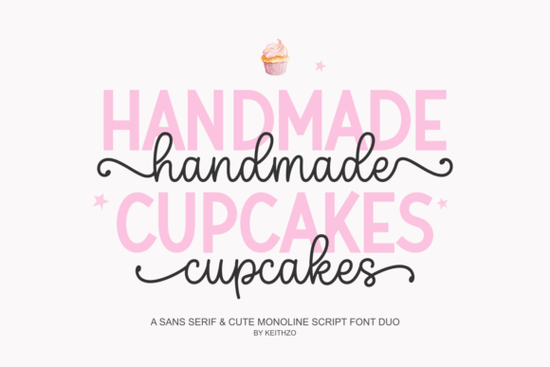
If you are designing for bakeries, lifestyle brands, or wedding vendors, finding a reliable typeface that balances modern clarity with a playful touch can take time. The Handmade Cupcakes Font solves this by offering a complete duo in one package. It combines a clean display sans-serif with a soft monoline script, giving you enough flexibility to handle everything from bold logos to delicate invitations without switching between multiple files.
What makes this typeface different from standard pairings?
Many creators settle for mismatched bundles that look disjointed in finished layouts. This set was built with visual harmony in mind. The primary sans-serif features crisp edges and open counters, making it highly readable on small labels or stamped paper. The secondary script flows naturally, with gentle curves that mimic casual hand-lettering. Because both styles share a similar x-height, they layer beautifully without competing. You will notice how well the strokes work together when creating branding materials or social graphics.
Which design projects work best with this duo?
This typeface performs well in applications that need both readability and character. If you run an Etsy shop or a small print-on-demand business, you can quickly mock up tees, hoodies, mugs, and tote bags while staying within standard licensing boundaries. Add a subtle texture overlay to give the letters a hand-painted finish, which often improves engagement on lifestyle product mockups. The crisp display letters handle large formats cleanly, while the script adds a personal touch to quotes or product tags. Digital planners also benefit from consistent line spacing, keeping pages organized instead of cluttered.
One of the strongest features is the full PUA encoding. This lets you access alternate characters, swashes, and decorative symbols directly through your font panel. Open the glyph menu, scroll through the mapped alternates, and click to insert them. No third-party converters required.